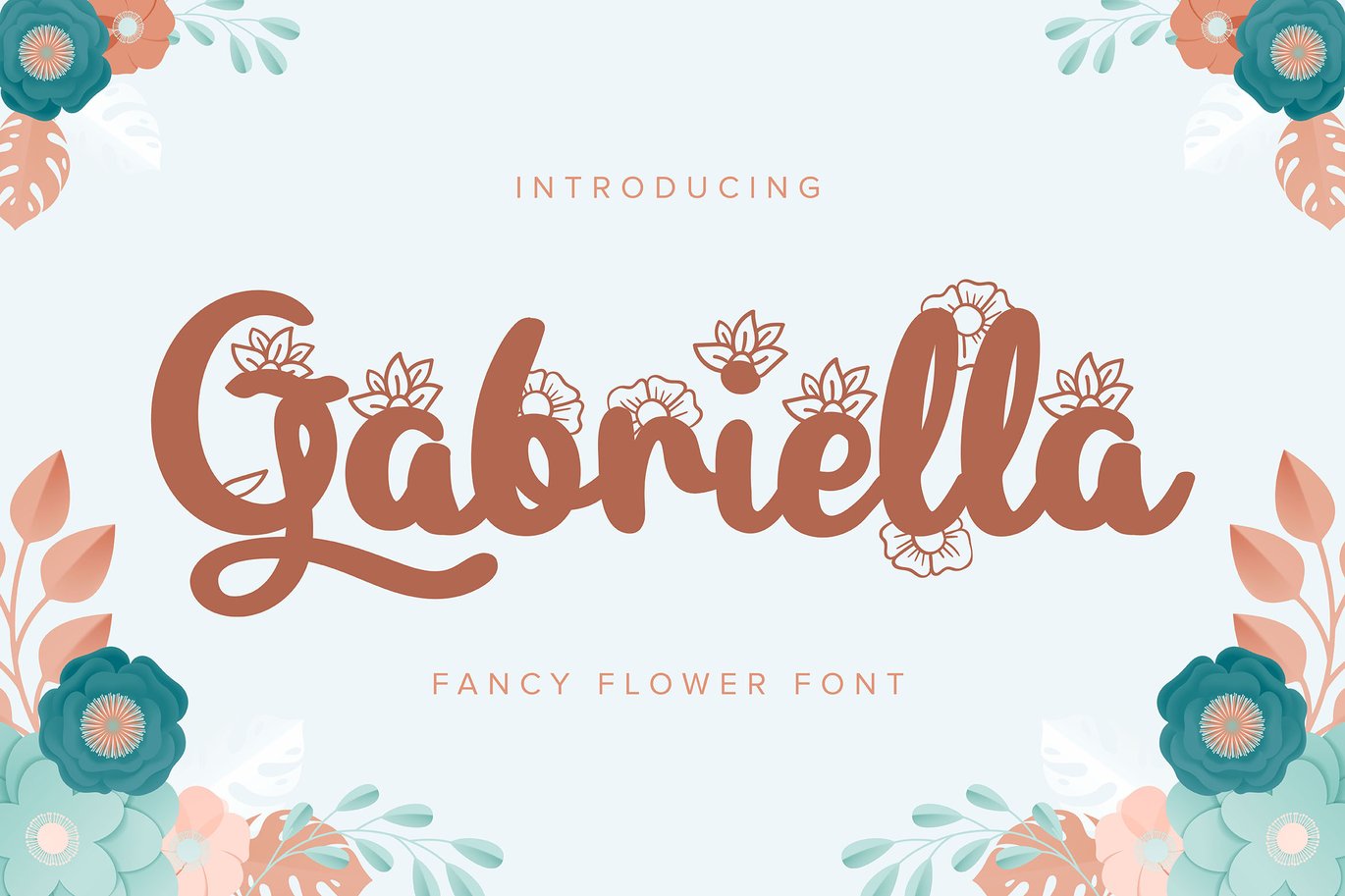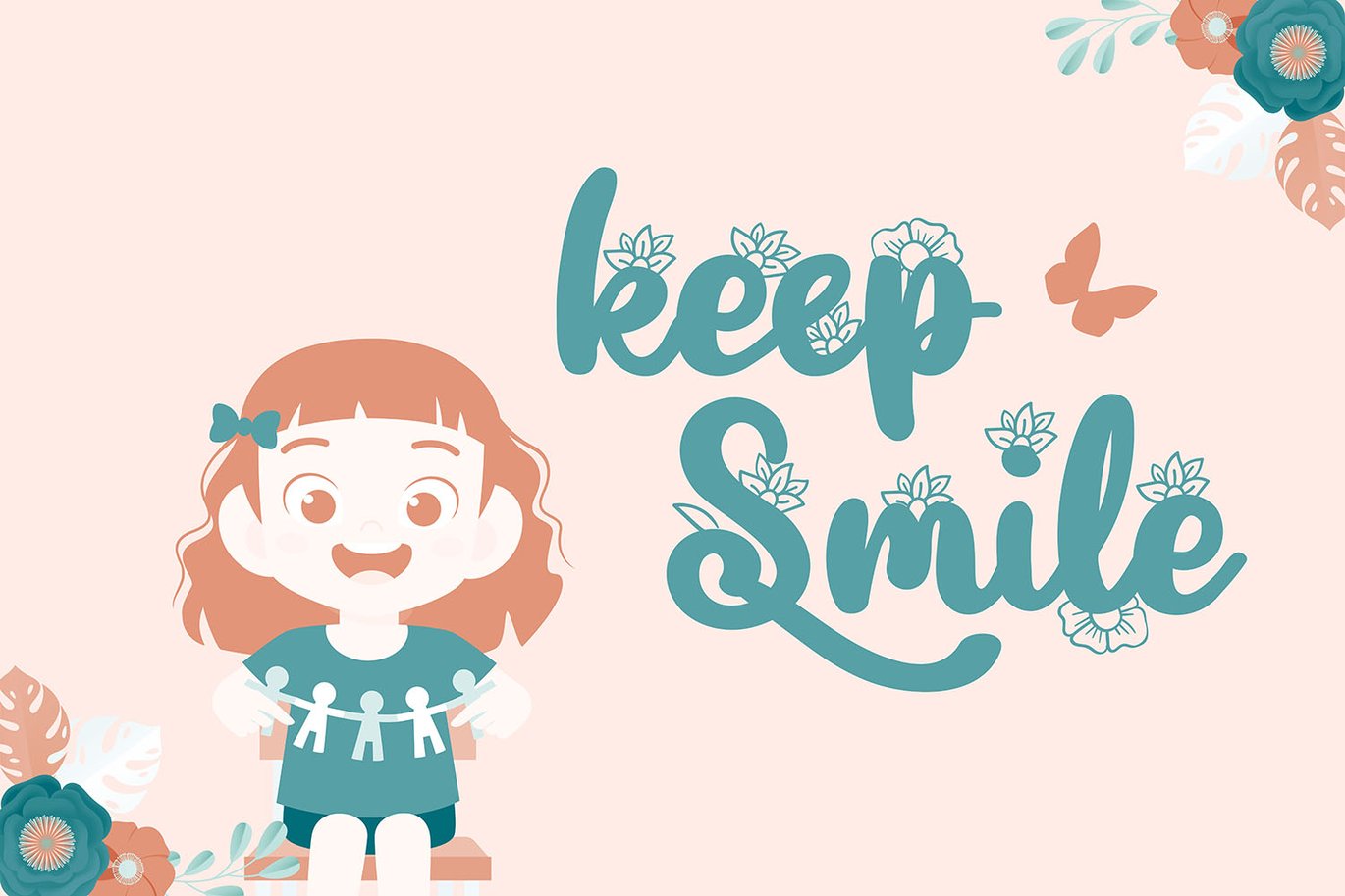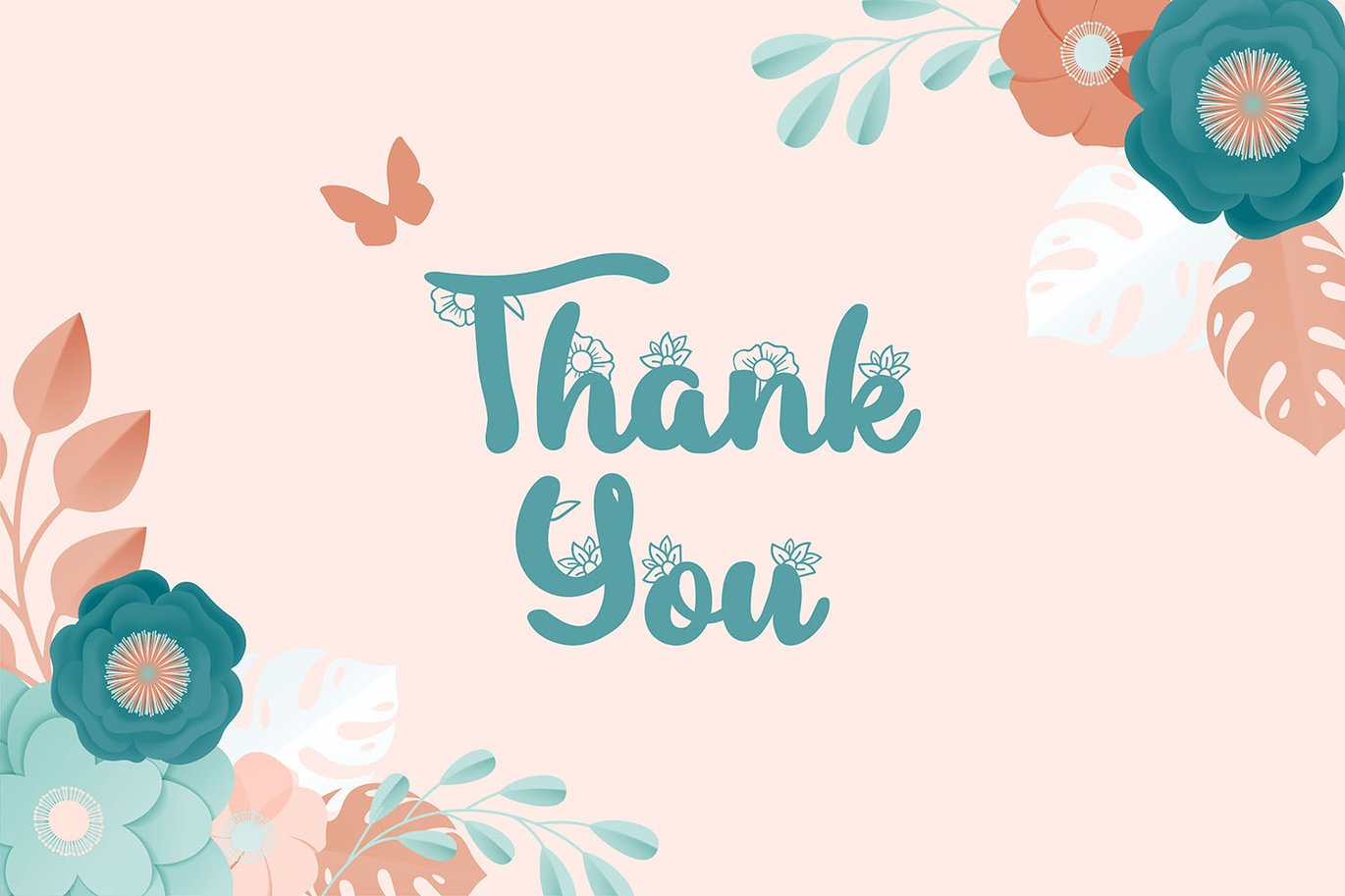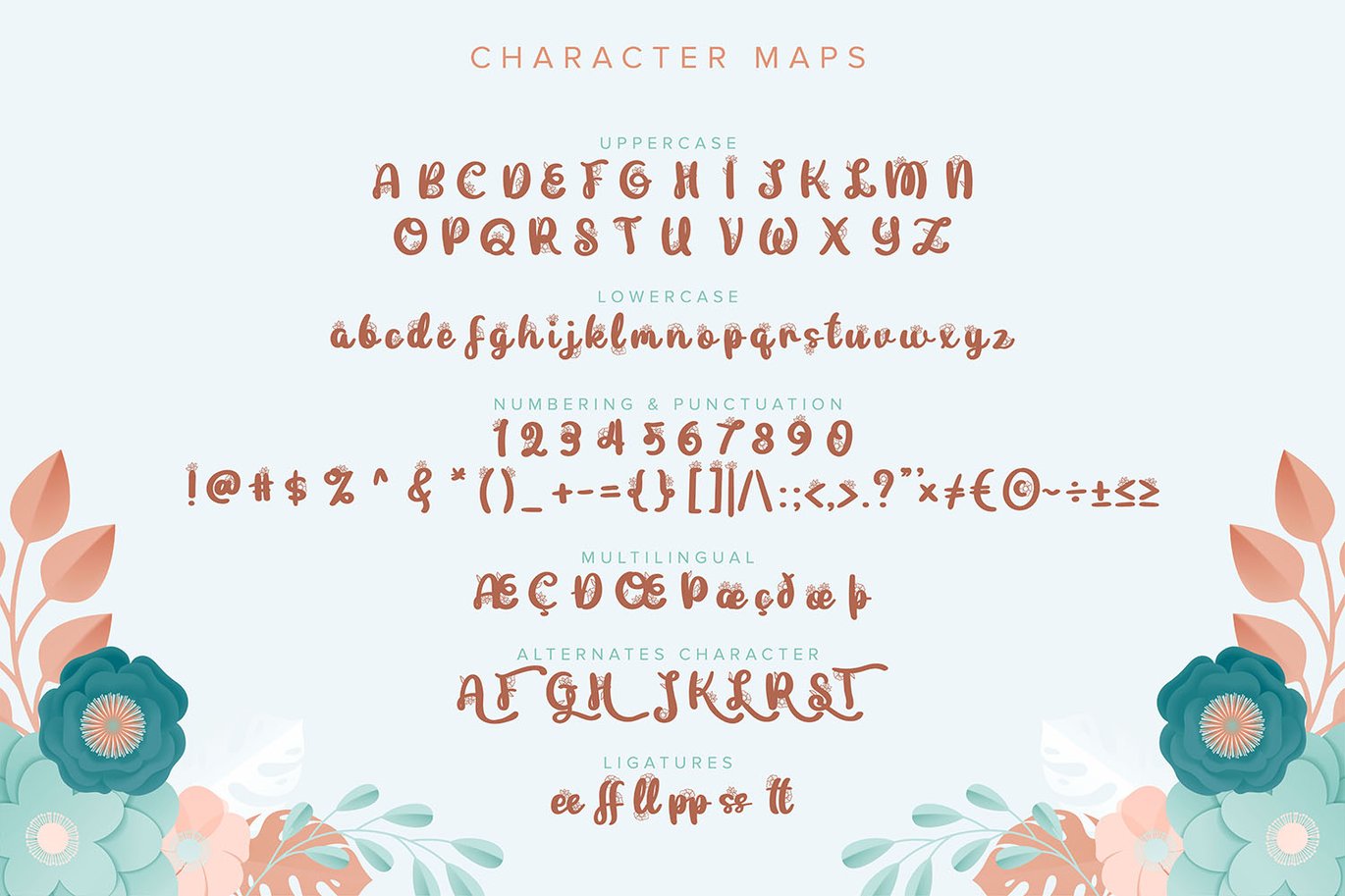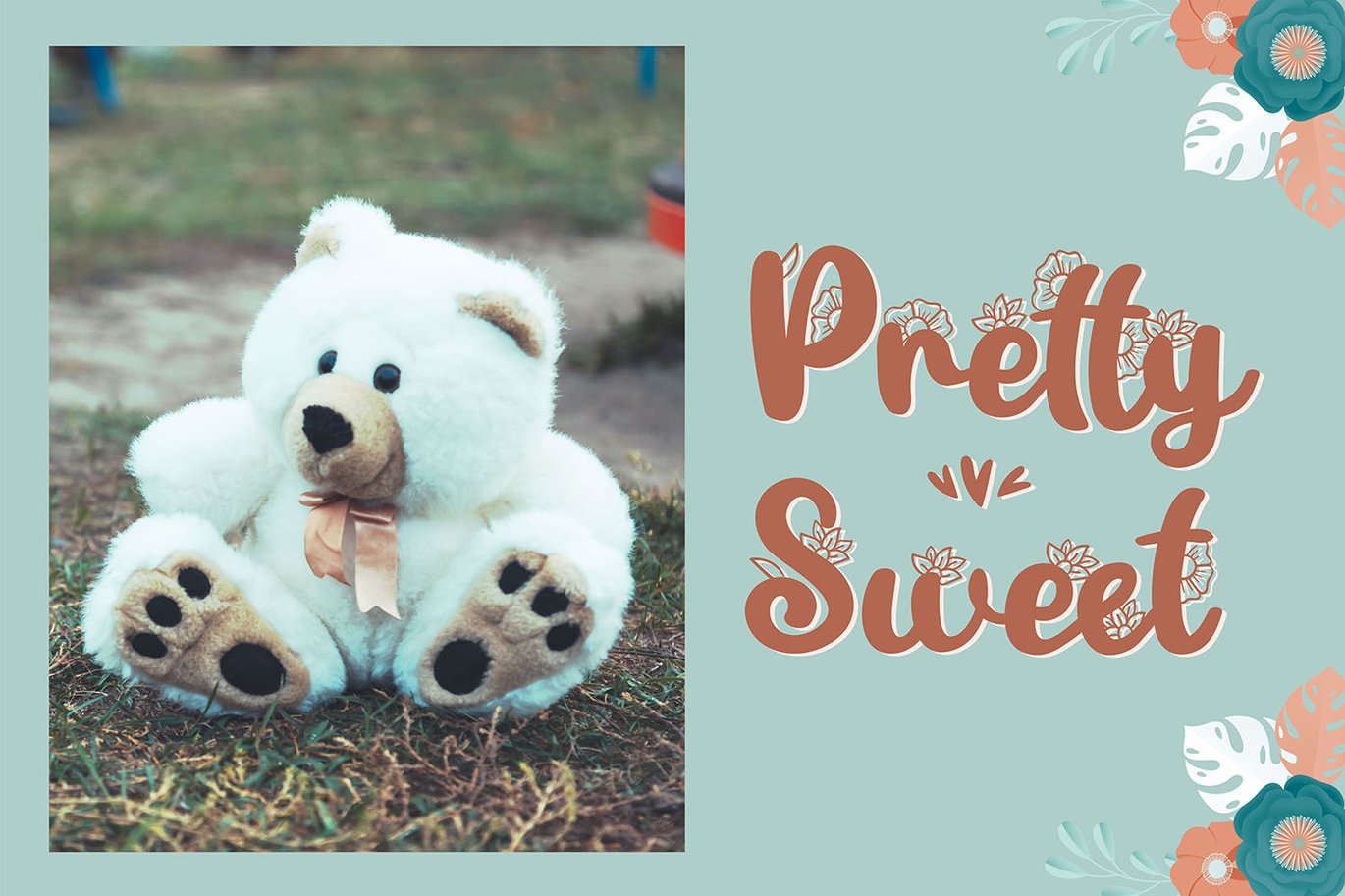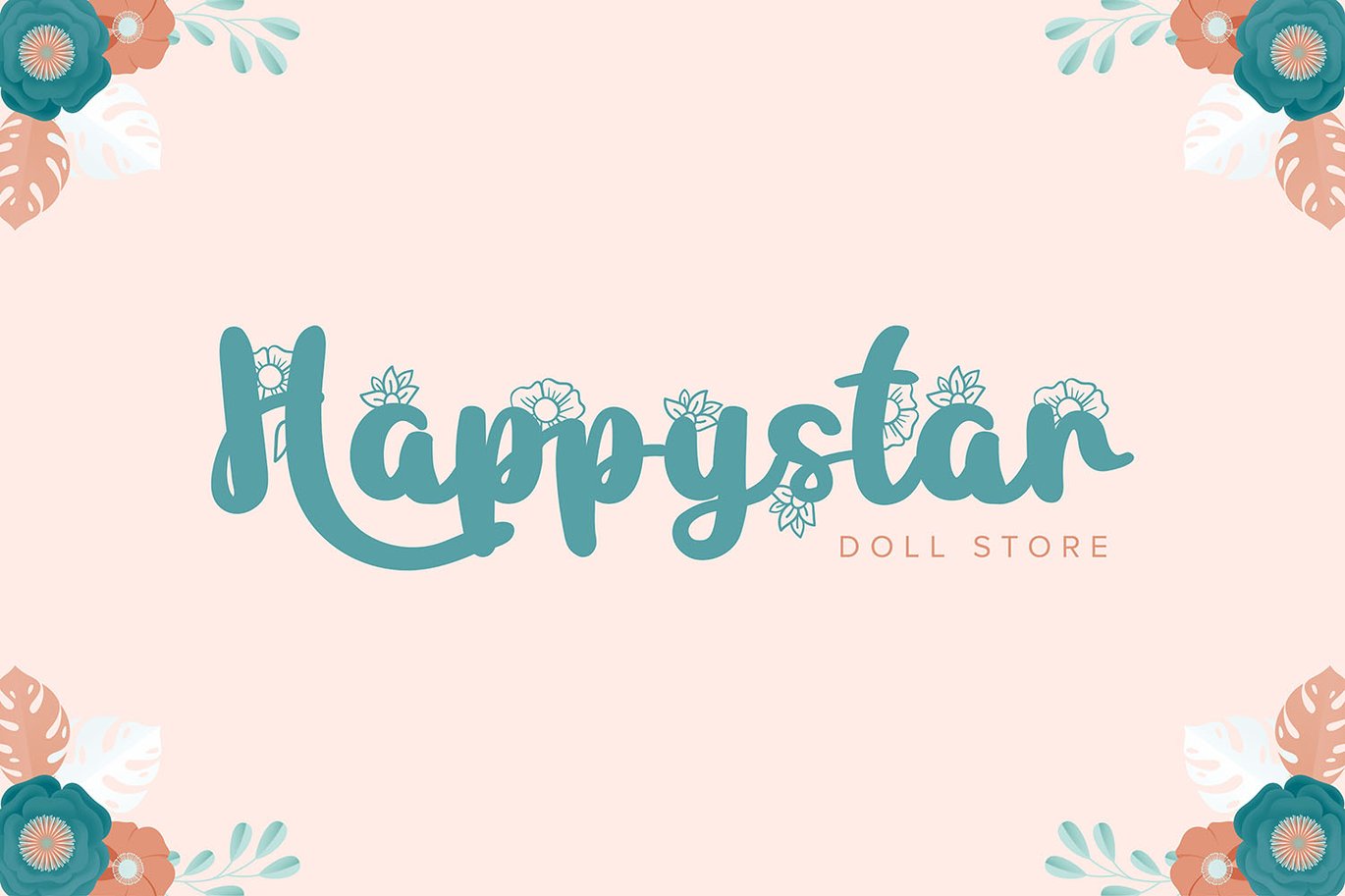
Gabriella | Fancy Flower Font
Gabriella | Fancy Flower Font with a calligraphy style, So beautiful on invitation like greeting cards, branding materials, business cards, quotes, posters, and more!